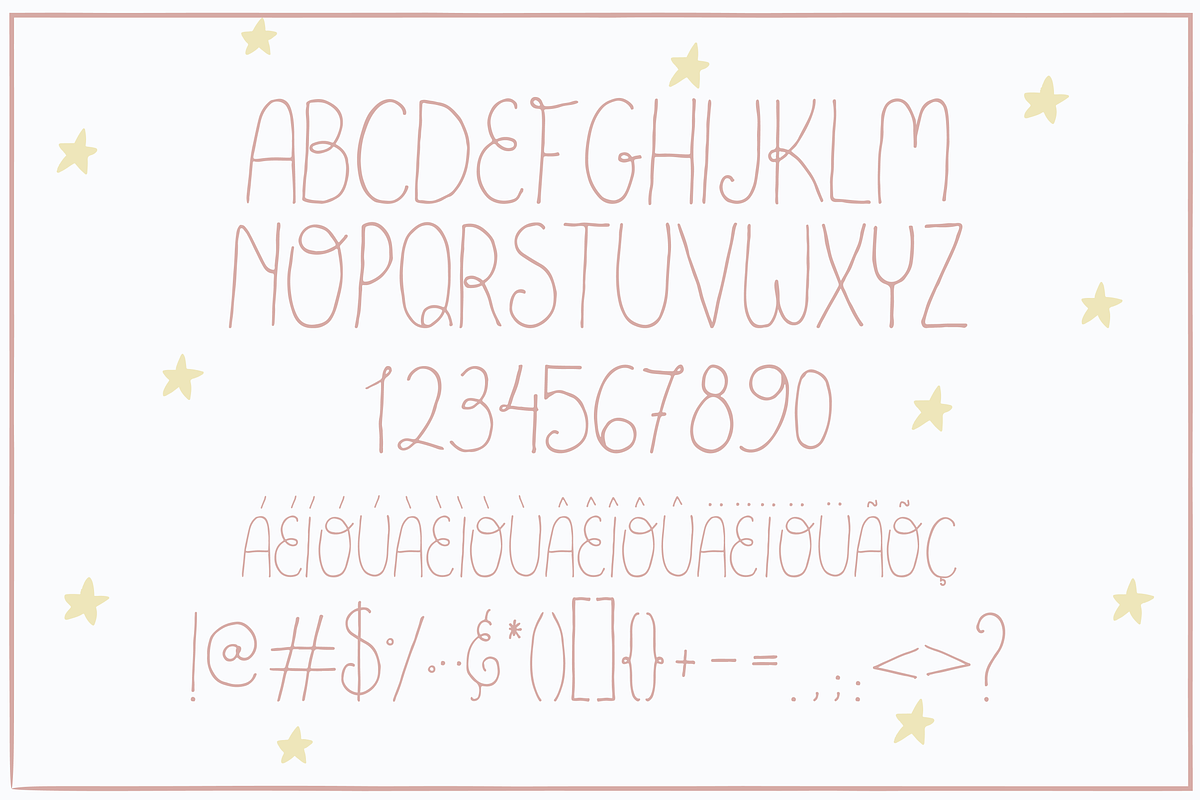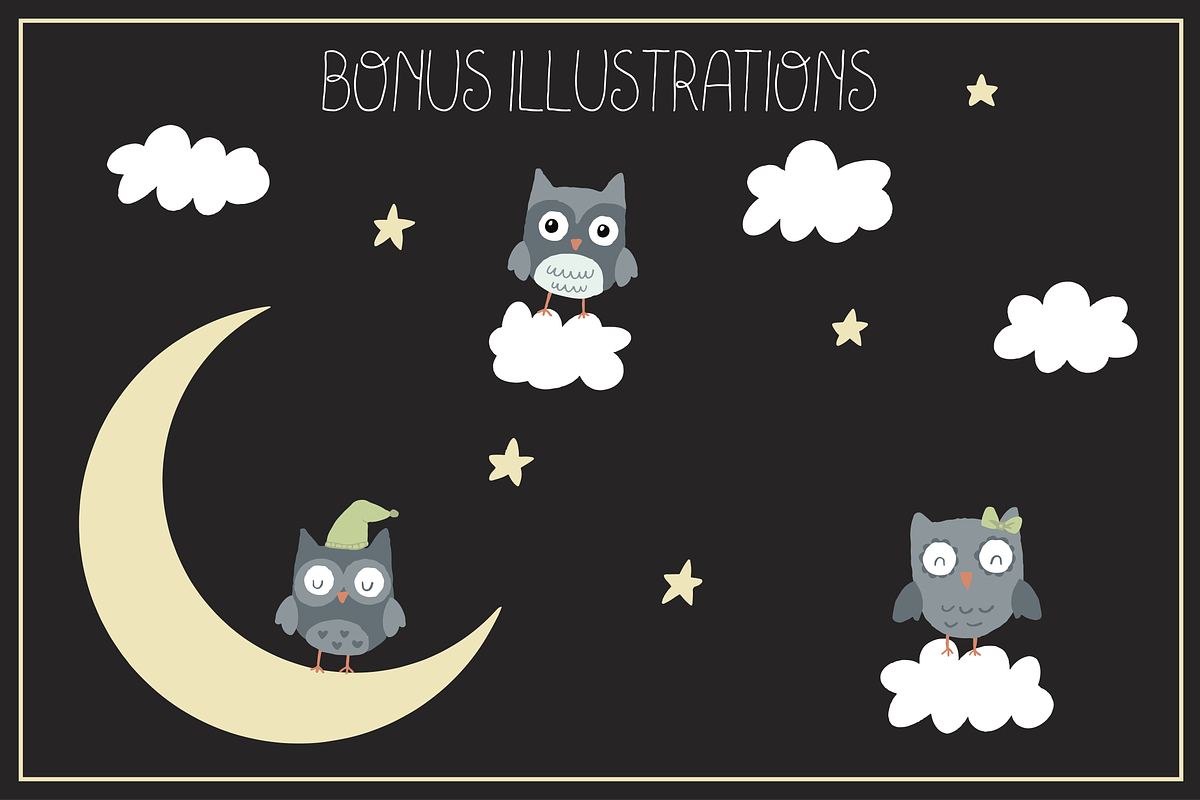
Goodnight Handmade Font
Goodnight Handmade Font by Caracol is a font selected for branding, posters, packaging, typography.
- Goodnight is a playful handmade typeface that includes numbers,punctuation and a few international characters.
Why Goodnight Handmade Font is worth a look
Goodnight Handmade Font by Caracol fits naturally into Branding, posters, packaging, typography.